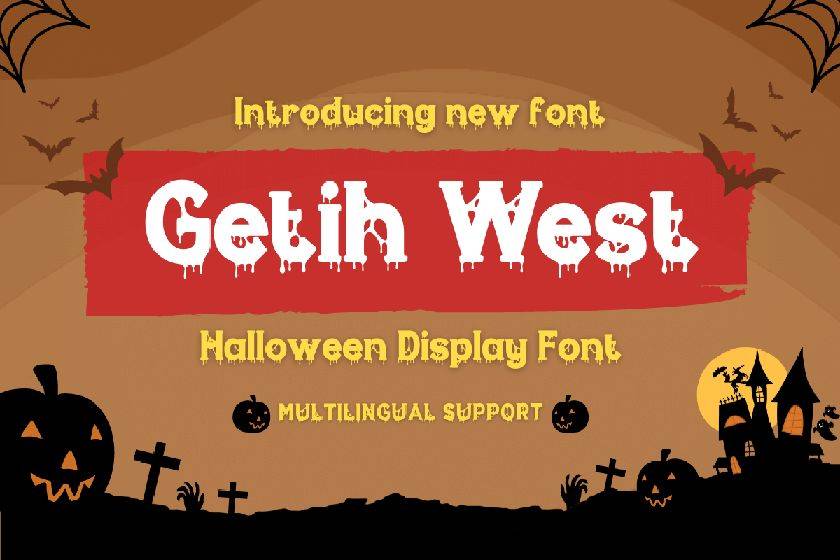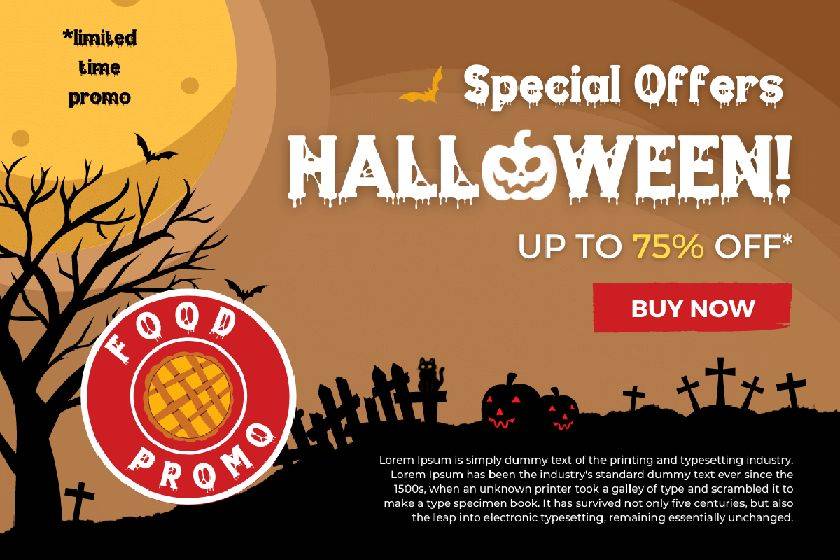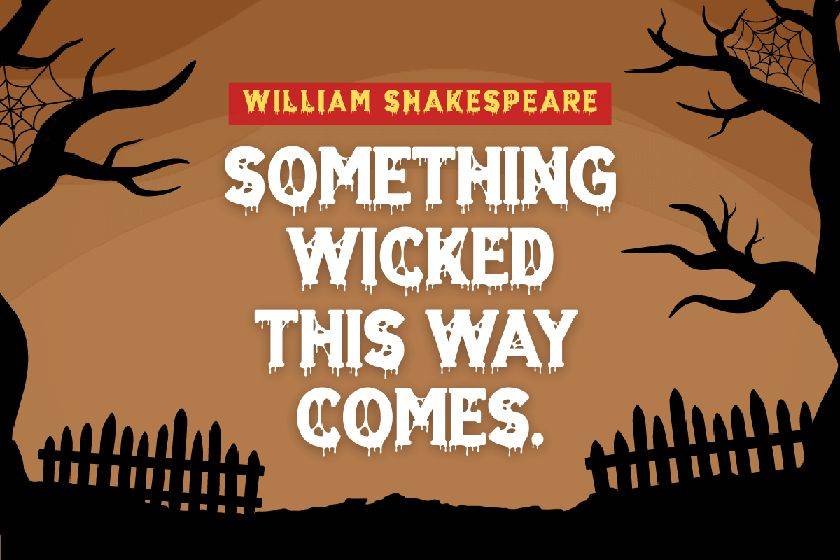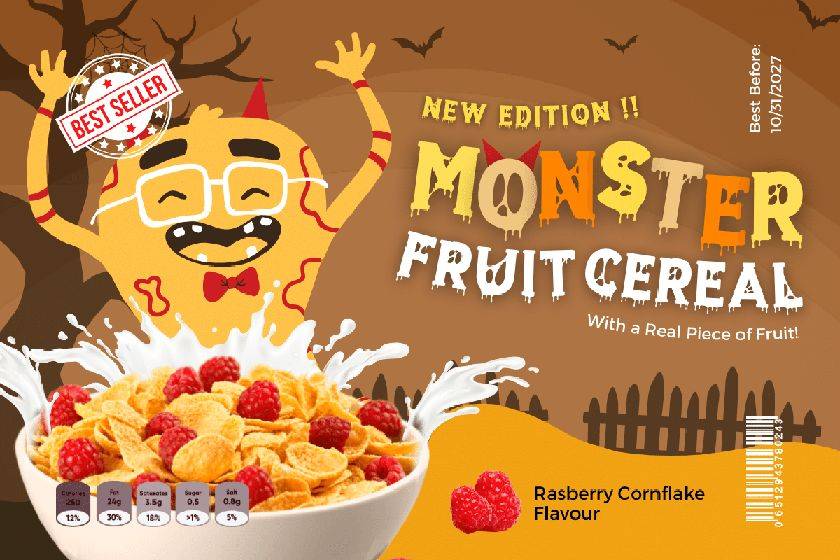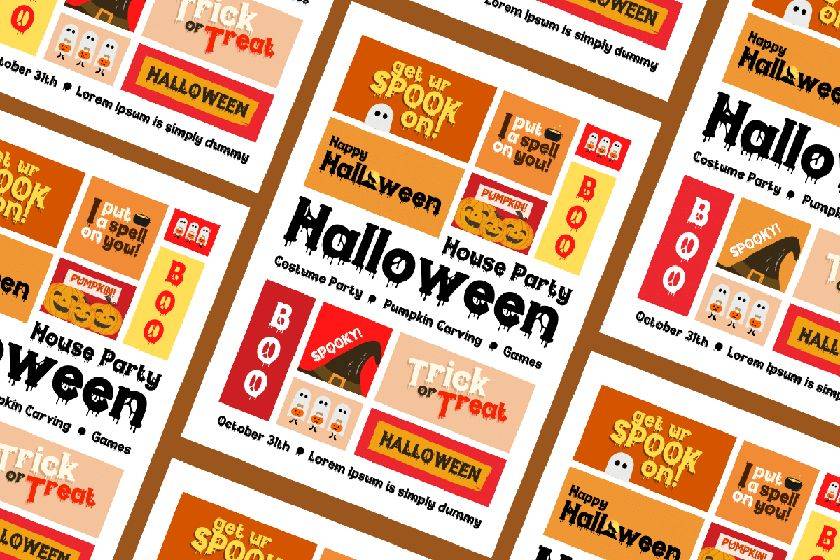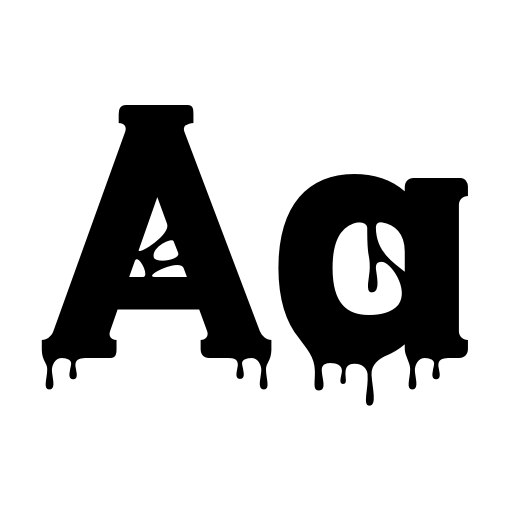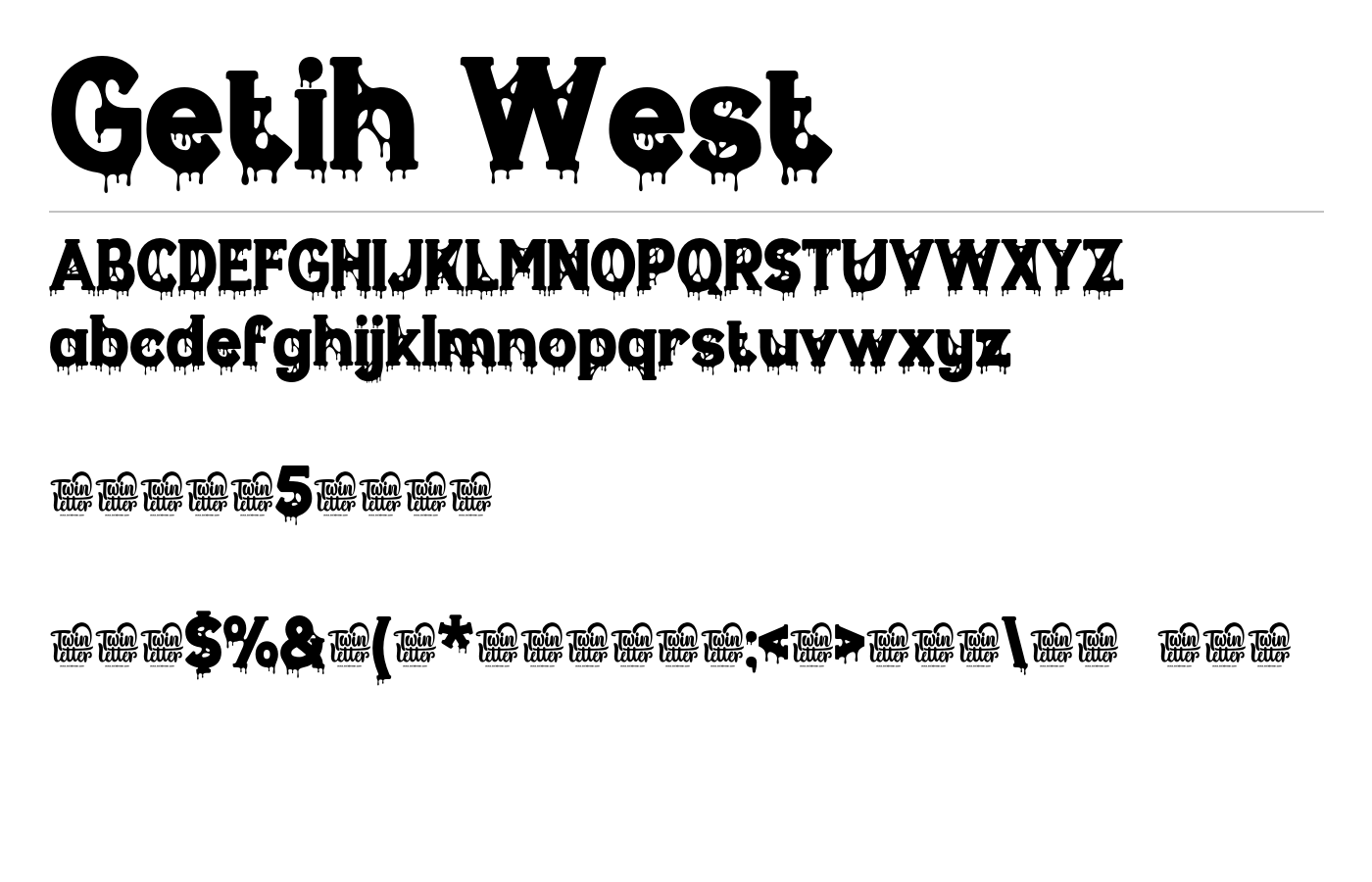
Getih West is a bold, decorative slab serif font with a distinctive dripping effect that adds a playful and slightly eerie character. Its strong, blocky shapes combined with the unique dripping accents make it perfect for eye-catching headlines, posters, and themed designs that want to evoke a fun yet edgy mood. This font works well in creative branding and display uses where a dramatic, unconventional style is desired.
Getih West Font
About Getih West Font